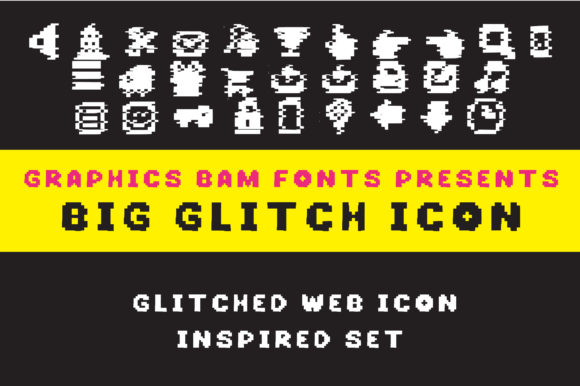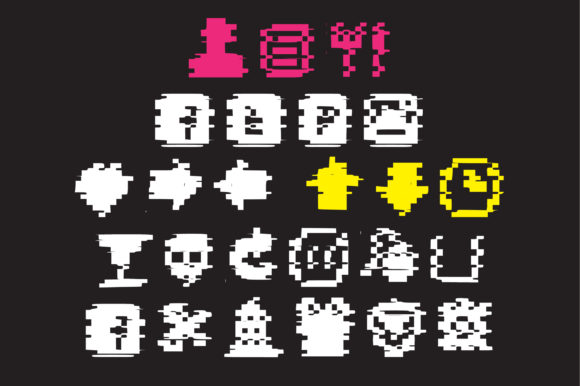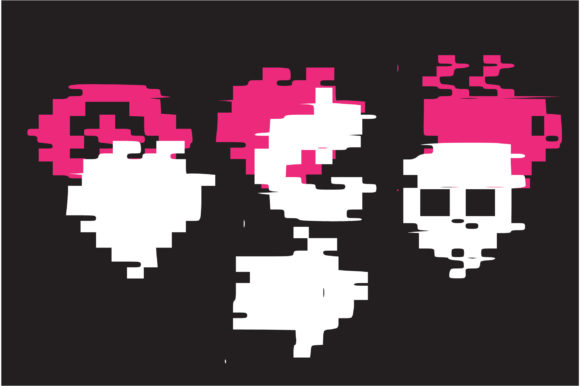
About Big Glitch Icon Font
Absolutely! “Big Glitch Icon” is a cool and uniquely shaped dingbats font that brings a distorted and trendy touch to your designs. With its pixelated and glitchy style, this font is perfect for adding an edgy and modern aesthetic to your projects.
The distinctive shapes and pixelated design of “Big Glitch Icon” make it stand out and grab attention. Whether you’re working on graphic design projects, digital artwork, or even creating logos and branding materials, this font adds a unique and contemporary flair.
The distorted and glitchy look of the font gives your designs a sense of digital disruption and adds a touch of creativity and experimentation. It can be used to create bold headlines, eye-catching icons, or even as decorative elements in larger compositions.
You can incorporate “Big Glitch Icon” into various design projects, such as posters, album covers, social media graphics, website elements, and more. Its unconventional and trendy style is particularly well-suited for projects related to technology, gaming, music, or any creative field that aims to embrace a modern and edgy aesthetic.
Additionally, the pixelated and glitchy design of the font can also evoke a nostalgic vibe reminiscent of retro video games and old computer graphics. This adds a layer of nostalgia and vintage appeal to your designs, making them visually engaging and intriguing.
Whether you’re aiming to create a visually striking poster, a futuristic logo, or a unique social media graphic, “Big Glitch Icon” is a cool dingbats font that will help you achieve a distorted and trendy look. It adds a touch of uniqueness and creativity to your designs, making them stand out in the digital landscape.
So go ahead and explore the possibilities of “Big Glitch Icon” to add a cool and distinctive touch to your designs. Let its pixelated and glitchy style bring an edgy and modern vibe to your projects and make them visually captivating.